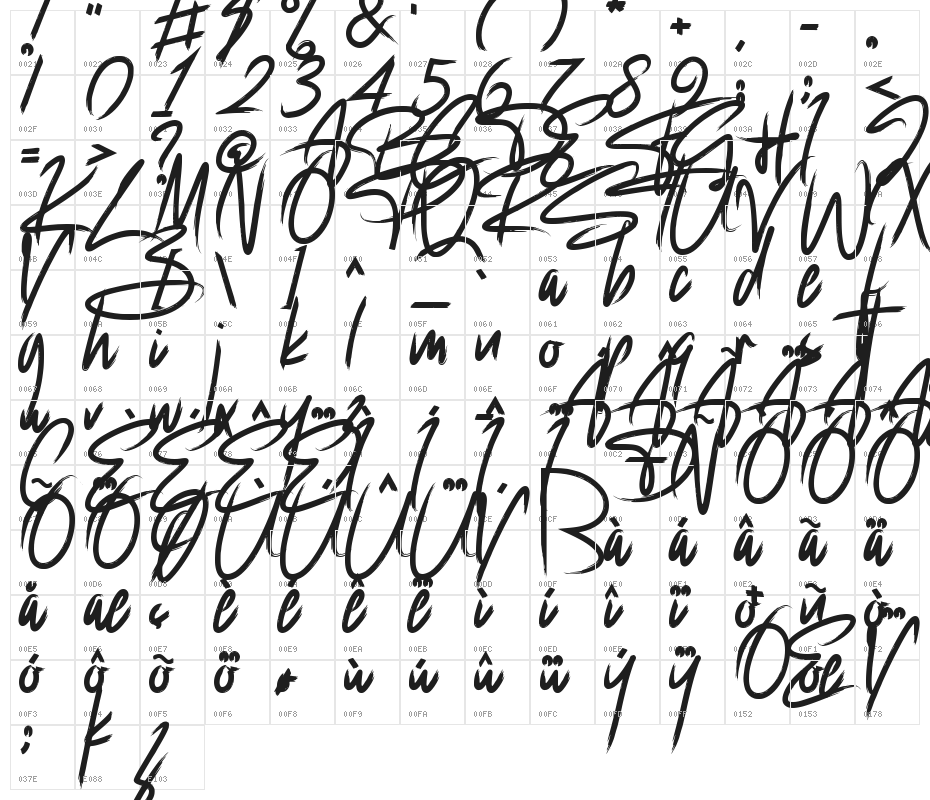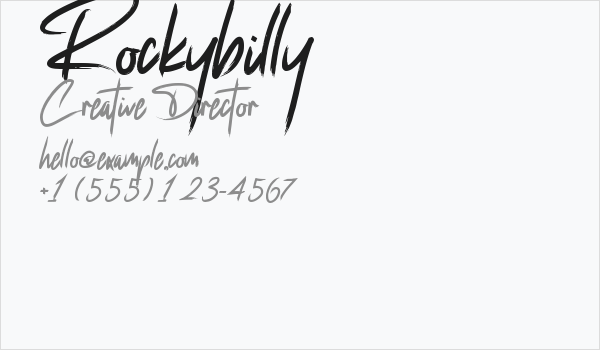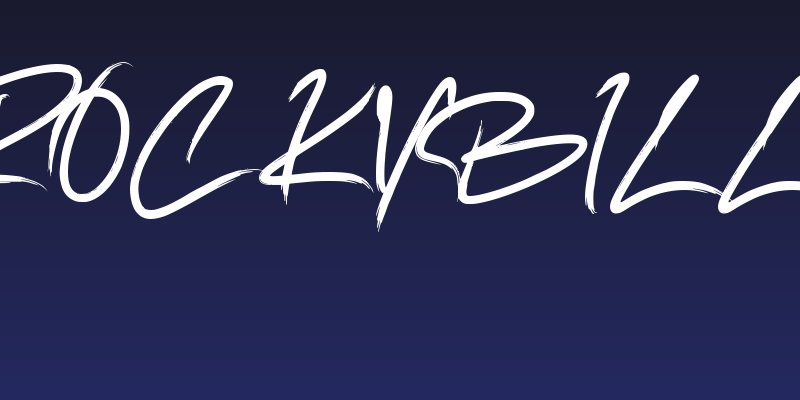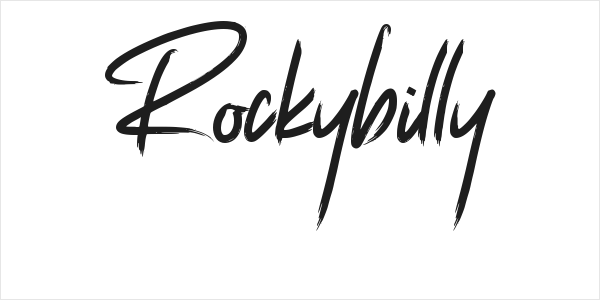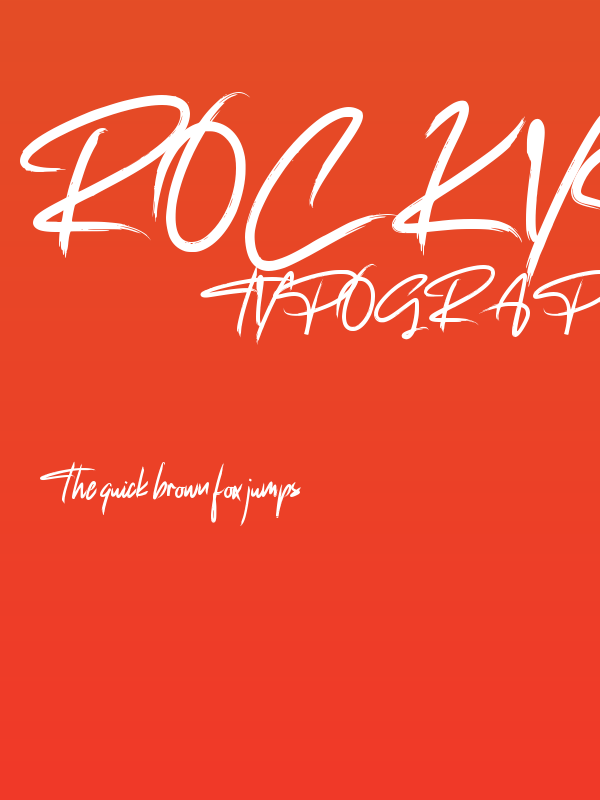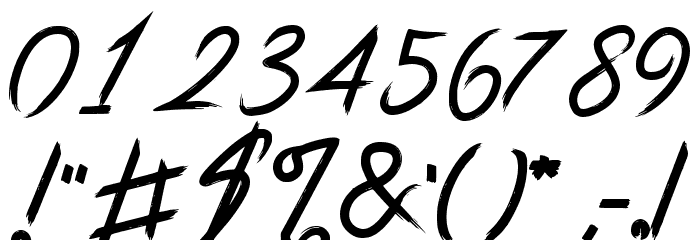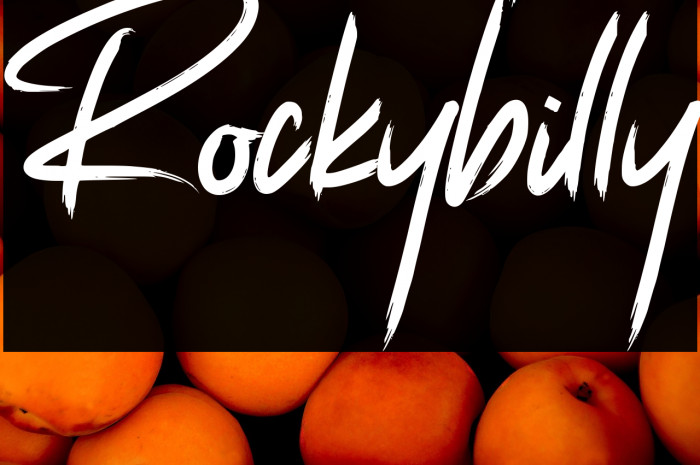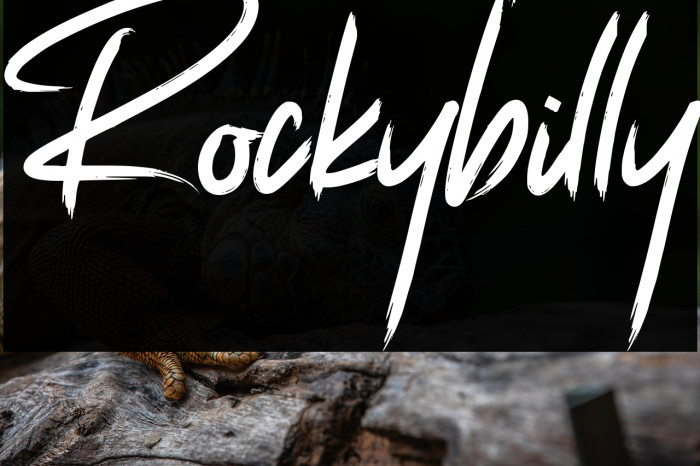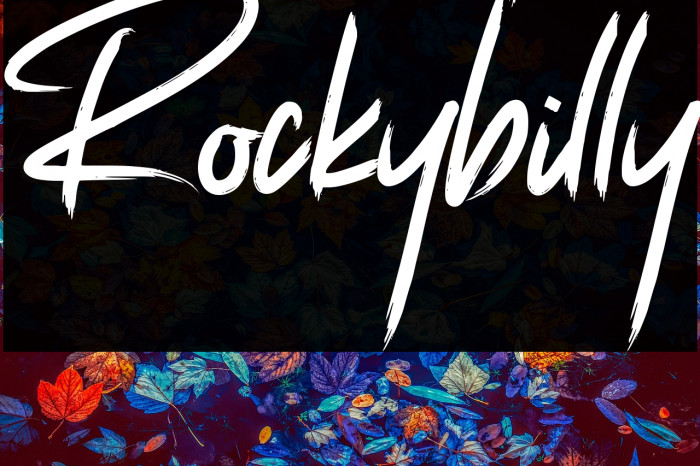
Rockybilly Font
Rockybilly Description
This font exudes a dynamic and energetic vibe with its bold, brush-like strokes. The uppercase letters are slightly slanted, giving a sense of movement and fluidity. The lowercase letters maintain this energetic style, with some characters extending below the baseline, adding to the font's expressive nature. The numbers and special characters follow the same bold and artistic design, making them stand out. This font is perfect for projects that require a touch of creativity and flair, such as posters, branding, and artistic designs.
| Proposed Projects | Ideal for posters, branding, artistic designs, and any project needing a creative flair. |